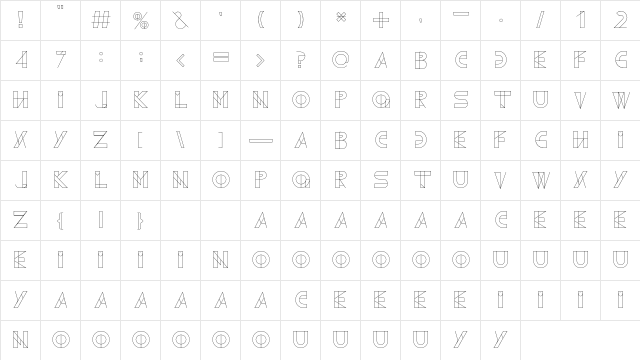
Geometrica ExtLt geometric Regular
| Designer | Rizalmstk |
Design Context for Geometrica ExtLt geometric Typeface
Geometrica ExtLt geometric is a composed and adaptable typeface that performs quietly and consistently across a wide range of design contexts.